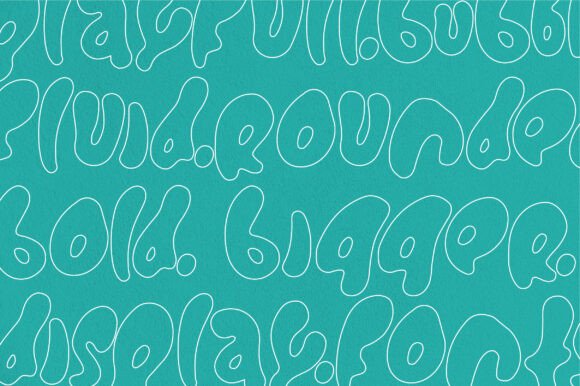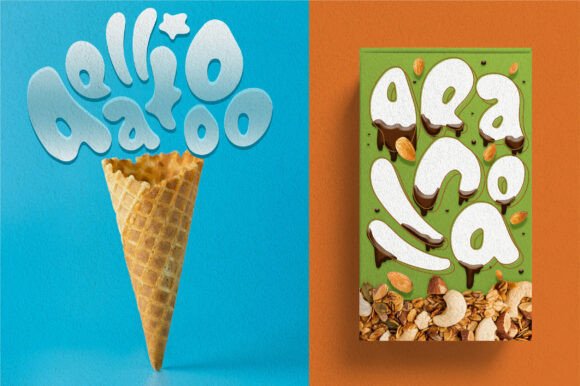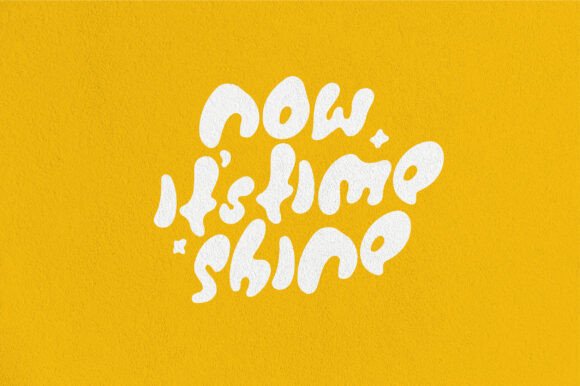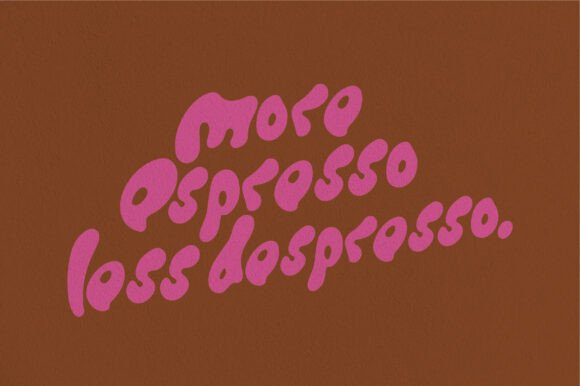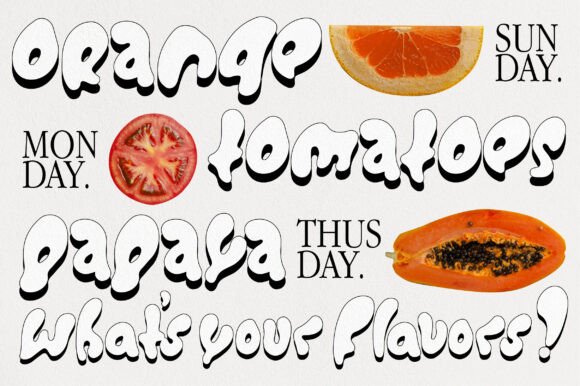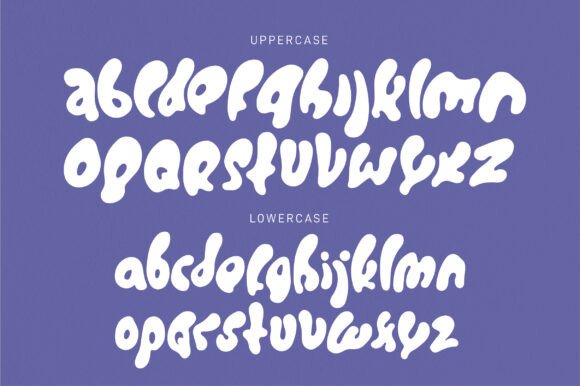
Hand-Drawn Charm: Introducing the Avocado Font
Do you ever find yourself scribbling down ideas in a notebook, only to discover that a messy, handwritten note has turned into the spark that ignites a creative project? For designers and artists, those haphazard scribbles can often be the catalyst for something truly unique and special.
That’s exactly what happened when I created the Avocado Font – a hand-lettered, bubbly, and wonderfully quirky font that’s perfect for adding a touch of whimsy to your designs. With its full set of uppercase and lowercase letters, punctuation, and even a few special characters, the Avocado Font is an invaluable tool for anyone looking to add a handmade touch to their work.
Whether you’re crafting a logo, designing a quote, or creating a sign, the Avocado Font is sure to bring a smile to your face and a dash of personality to your project. So why settle for a generic font when you can have a dash of kookiness with the Avocado Font?
Avocado Font Key Features
- Unique Characteristic: The Avocado Font features a unique, modern design with a combination of rounded and geometric shapes, giving it a distinctive look that sets it apart from other sans-serif fonts.
Avocado Font Review
First of all, I’d like to say that Avocado Font has a certain charm to it. The rounded edges and soft curves make it a great choice for designs that require a warm, inviting feel. ✨ The font is also highly customizable, with a range of weights and styles to choose from.
- ✨ Highly customizable with various weights and styles
- ✨ Great for designs that require a warm, inviting feel
- ✨ Can be used for a wide range of applications, from logos to body text
However, there are a few limitations to consider. The font can look a bit too playful or childish at times, which may not be suitable for all designs. Additionally, some users have reported issues with font rendering at smaller sizes. ⚠️
- ⚠️ May look too playful or childish for some designs
- ⚠️ Issues with font rendering at smaller sizes
Overall, I think Avocado Font is a solid choice for designers who want a warm and inviting font for their projects. While it may not be the best fit for every design, it’s certainly worth considering for the right project.
Tips for Getting the Most Out of Avocado Font
Use Avocado Font for headings and titles to add a touch of elegance and sophistication to your designs. Experiment with different font sizes and colors to create visual interest. Pair Avocado Font with other fonts for a unique and creative look.
Avocado Font is perfect for:
- Health and wellness marketing
- Luxury and high-end product design
Alternatives to Avocado Font for Designers
Great Vibes is a beautiful, modern script font perfect for adding a touch of elegance to your designs. It’s ideal for use in headings, logos, and other decorative elements. Great Vibes has a more refined and polished look compared to Avocado Font, making it suitable for high-end branding and advertising materials.
Comparison: Great Vibes has a more refined and polished look, while Avocado Font has a more casual and laid-back feel.